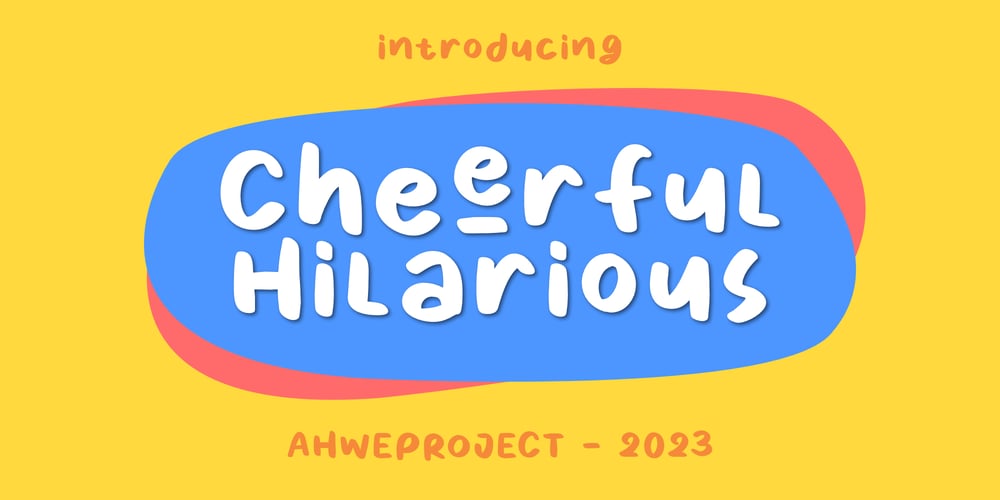
Cheerful Hilarious
Cheerful Hilarious font
Cheerful Hilarious Font Family was designed by Dida Ahluddin and published by ahweproject. Cheerful Hilarious contains 1 styles and family package options. Cheerful Hilarious is a fun and quirky handwritten display font. Its whimsical vibe is perfect for creating unique, kid-friendly designs.